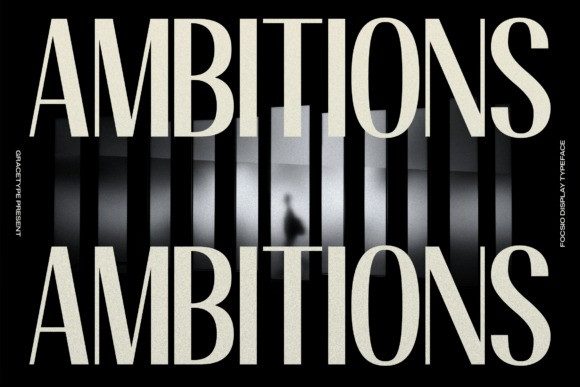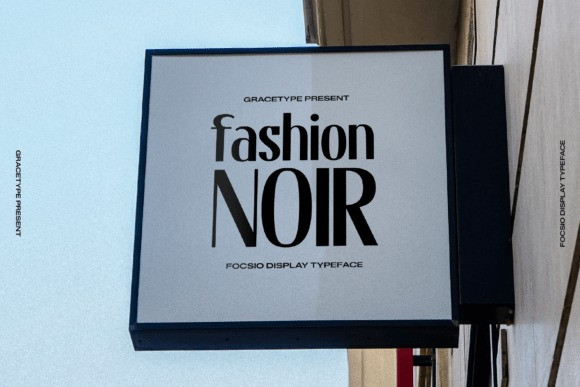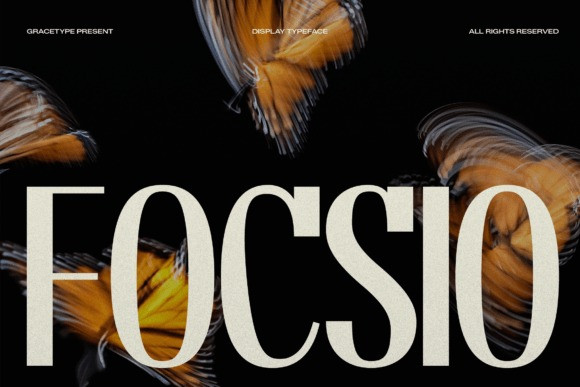
Focsio Font
Focsio Font a bold display typeface. This font masterfully blends high-fashion editorial elegance with modern geometric precision. Characterized by its towering x-height, condensed silhouette, and sharp, high-contrast serifs, Focsio radiates a sense of sophisticated authority and timeless style. Its massive visual weight and clean, architectural lines make it an extraordinary choice for luxury magazine covers, avant-garde branding, high-end retail signage, and cinematic exhibition titles. Focsio delivers a sense of polished artisanal prestige and unyielding professional power to your designs, ensuring your headlines stand out with a legendary presence.